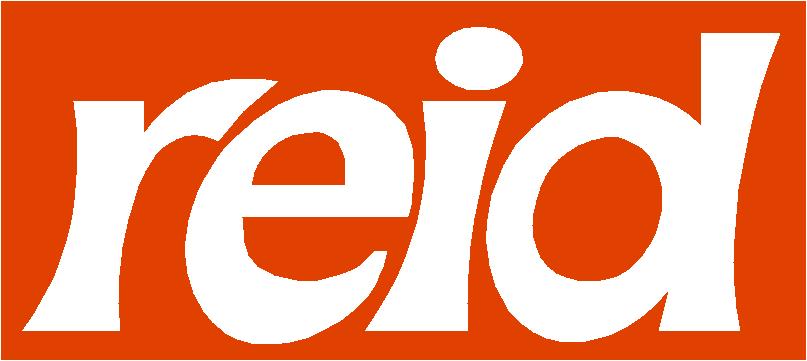
Font recognition
I don’t think it is a straight font – just a logo (Looks heavily modified as all the letters contour into the next one).
Nothin’ wrong with being lazy & optimistic!! Here’s a rough one to get you started – (it’s late). Hand vectored from your image.
needs a bit of work to get the curves just right…best leave you something to do!! :lol1: 😉